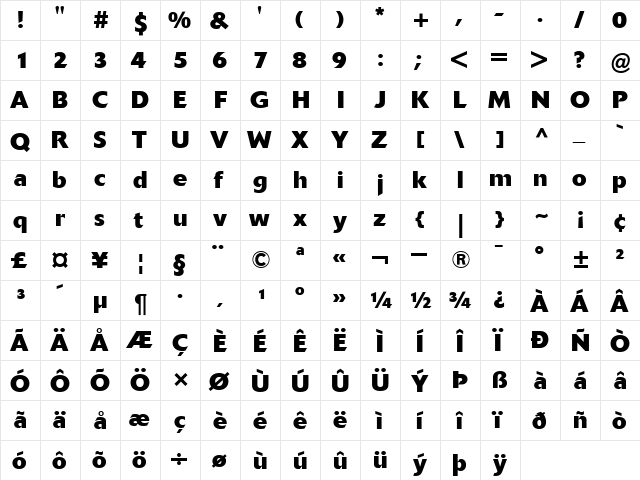
DeltaJaeger Bold
DeltaJaeger takes a measured approach to typography — its balanced proportions and neutral character make it a reliable workhorse for both digital and print work. The heavy weight commands attention and anchors typographic hierarchies.